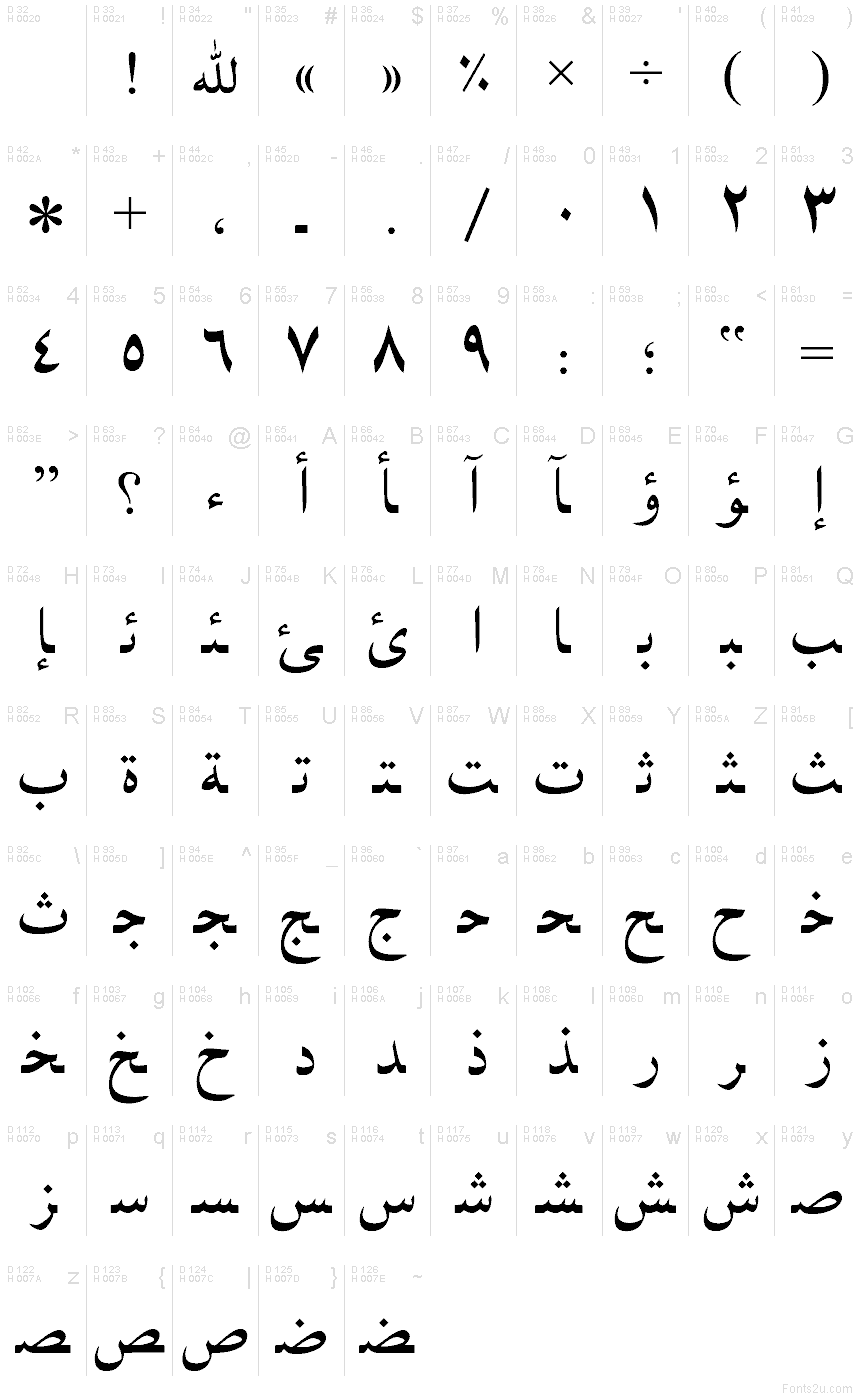
AlBaghdad Regular
AlBaghdad font by Sultan Maqtari is one potently sophisticated set of glyphs. With a unique sense of letter smoothness and unparalleled flow, the letters assume a natural position next to one another while their elegant look captivates the eyes at first sight. The font draws from traditional influences and calligraphic roots to pay homage to history.